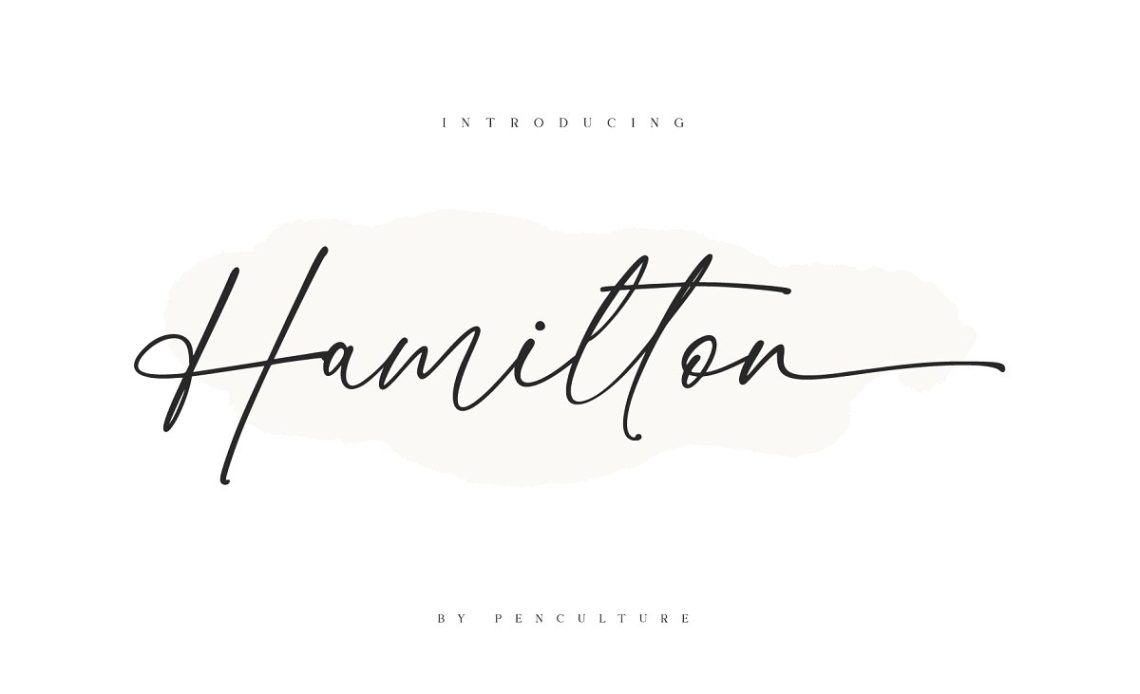
Are you looking for the perfect font to elevate your projects and make them stand out? Look no further than Hamilton // Classy Calligraphy Font. Created by Revo Farisky, this font is the ultimate solution for those seeking the best font for signature in PDFs.
Hamilton is a modern and elegant script font that comes with beautiful ligatures and lovely alternates. Its strokes are flawless, making it ideal for wedding invitations, fashion projects, and any design that requires a touch of class.
With its uppercase and lowercase letters, numbers, and punctuation, Hamilton offers you all the features you need to take your projects to the next level. Its beautiful ligatures and alternates allow you to create unique and personalized designs that will captivate your audience.
In conclusion, Hamilton // Classy Calligraphy Font is the perfect choice for anyone looking for a versatile and eye-catching font. Its beauty and elegance make it suitable for a wide range of projects, and its features and multilingual support ensure that it is accessible to everyone. Don't settle for less, choose Hamilton and take your projects to new heights.